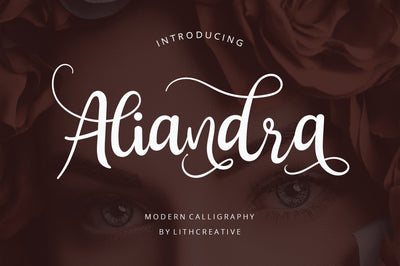
Aliandra Beautiful Font
Aliandra is a beautiful calligraphy font with a unique vibe. It’s perfect for adding a graceful feel to any design project.
Aliandra is perfect for branding projects, logo, wedding designs, social media posts, advertisements, product packaging, product designs, label, photography, watermark, invitation, stationery and any projects.